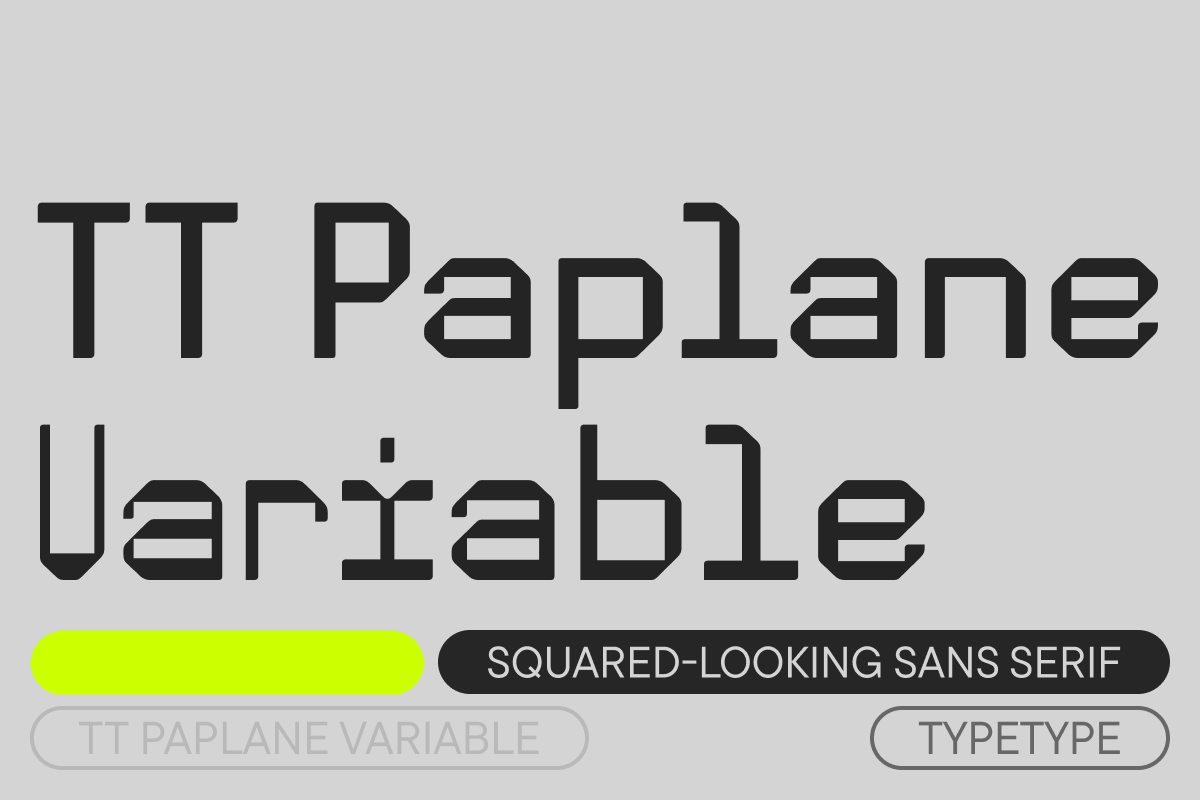
TT Paplane Variable
TT Paplane is a squared-looking display sans serif. Its name, Paplane, comes from the phrase “paper plane.” This embodies the core idea of our font: the logic of letters is built in a way that makes them look like they are folded from a paper strip. The unusual features of TT Paplane will shine best on posters and packaging, implemented into branding, and as an eye-catching element on websites and apps.